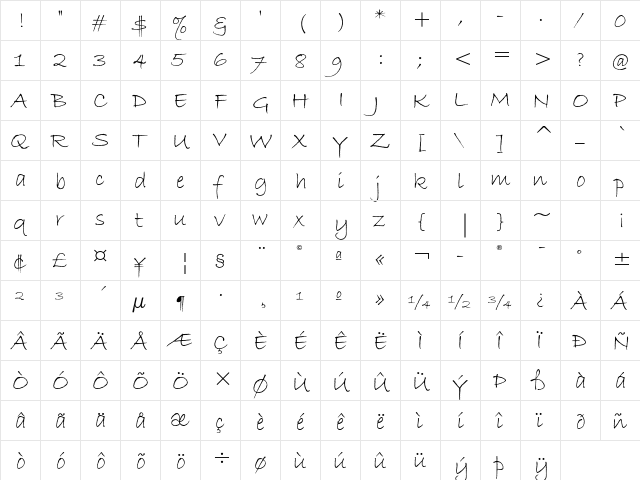
Bradley Hand ITC Std Regular
| Designer | Richard Bradley |
Design Context for Bradley Hand ITC Std Typeface
Bradley Hand ITC Std brings a calligraphic fluidity to the page — its connecting strokes and expressive curves give it an unmistakably human quality.
Font Pairing: Combine Bradley Hand ITC Std with a simple geometric sans for maximum contrast — the tension between flowing curves and clean structure is a classic typographic pairing.
Pro Tip: Use Bradley Hand ITC Std for short runs of text — names, titles, or taglines. Extended body copy in script faces tires the eye quickly.